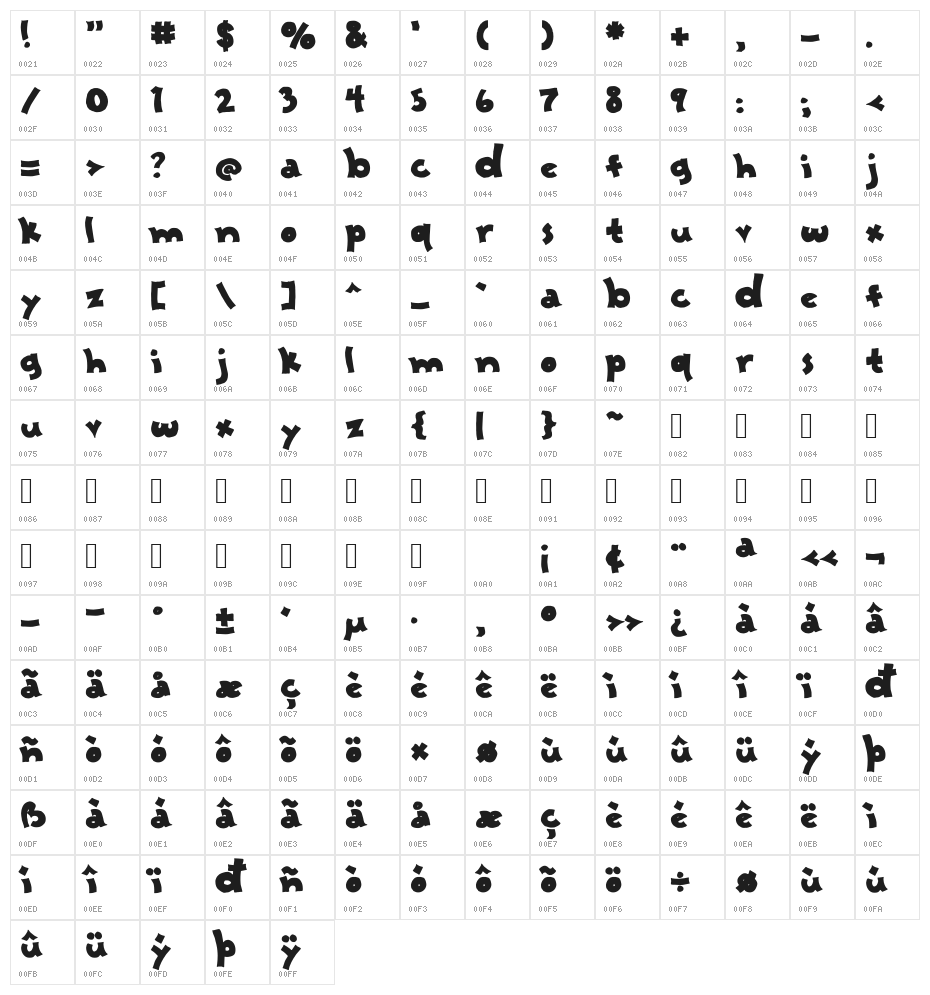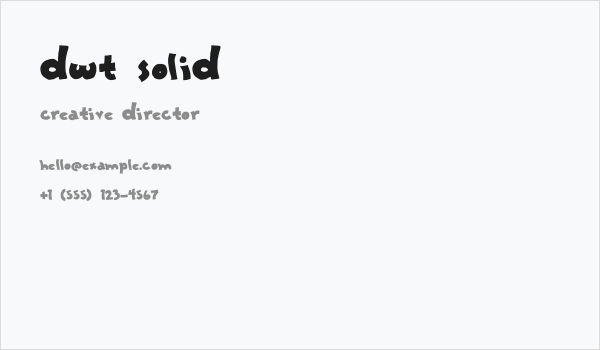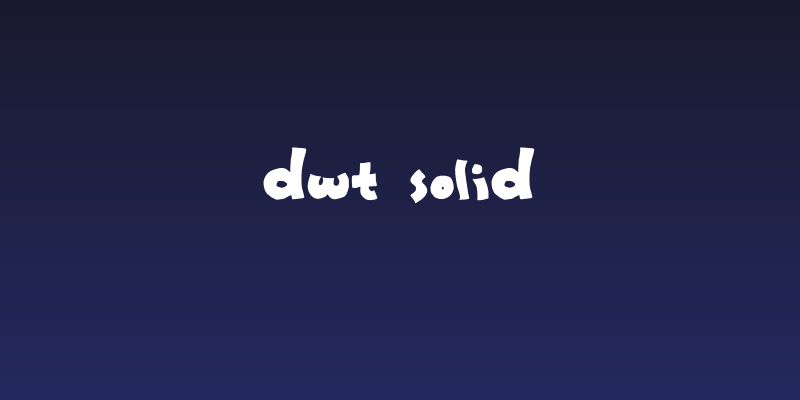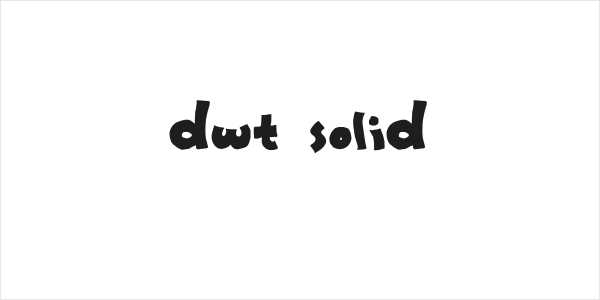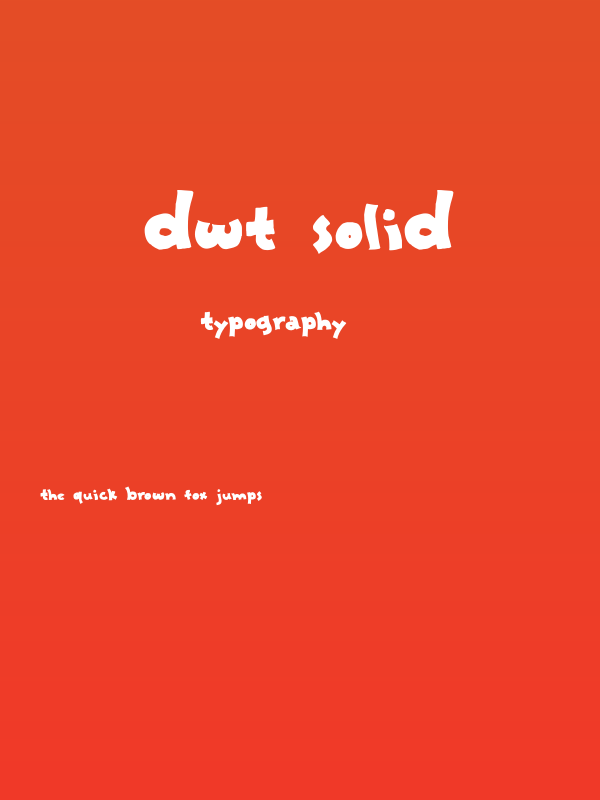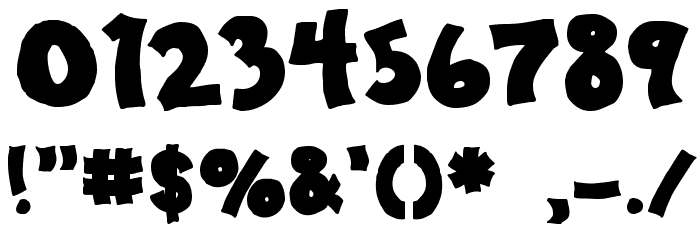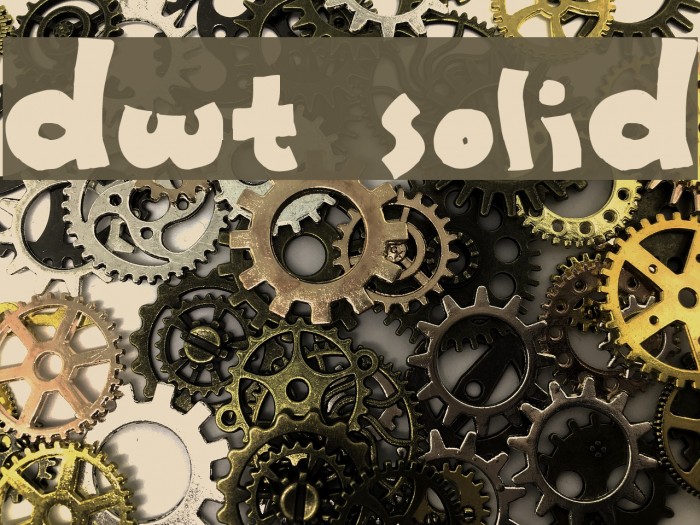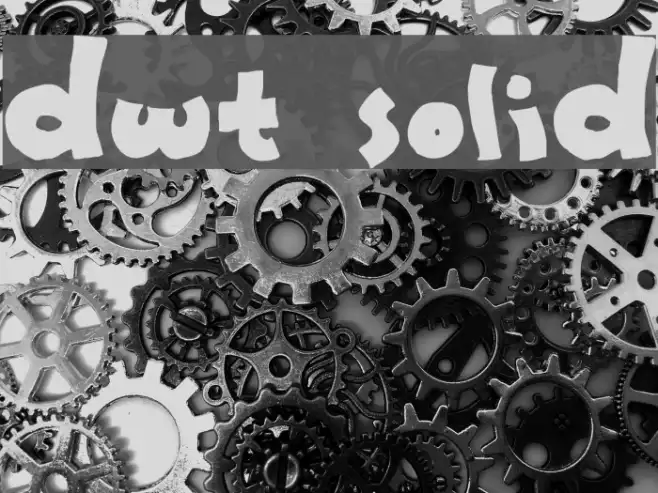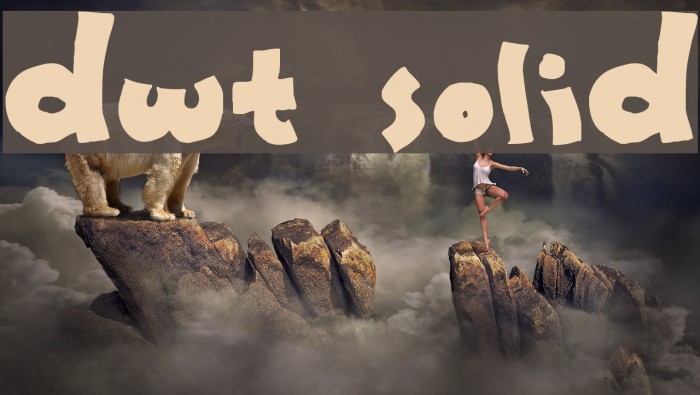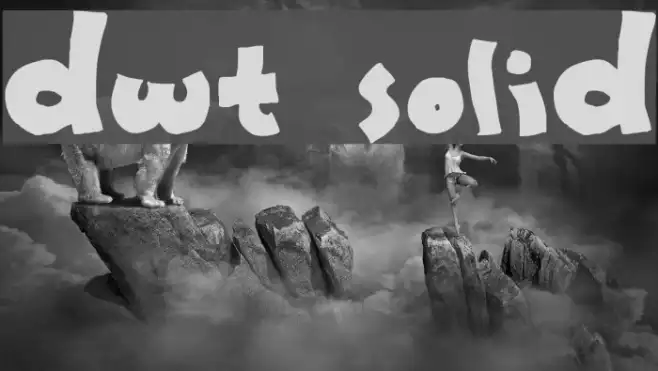
dwt Solid Font
dwt Solid Description
This font features a bold and playful design with irregular, chunky letterforms that give it a whimsical and dynamic appearance. The characters have a hand-drawn quality, with uneven edges and varying stroke thicknesses that add to its quirky charm. The uppercase and lowercase letters maintain a consistent style, while the numbers and special characters complement the overall aesthetic. This font's unique style makes it stand out, perfect for creative and informal projects.
| Use Case | Headlines, Posters, Creative Projects |
| Proposed Projects | Ideal for children's books, playful branding, posters, and creative invitations. |